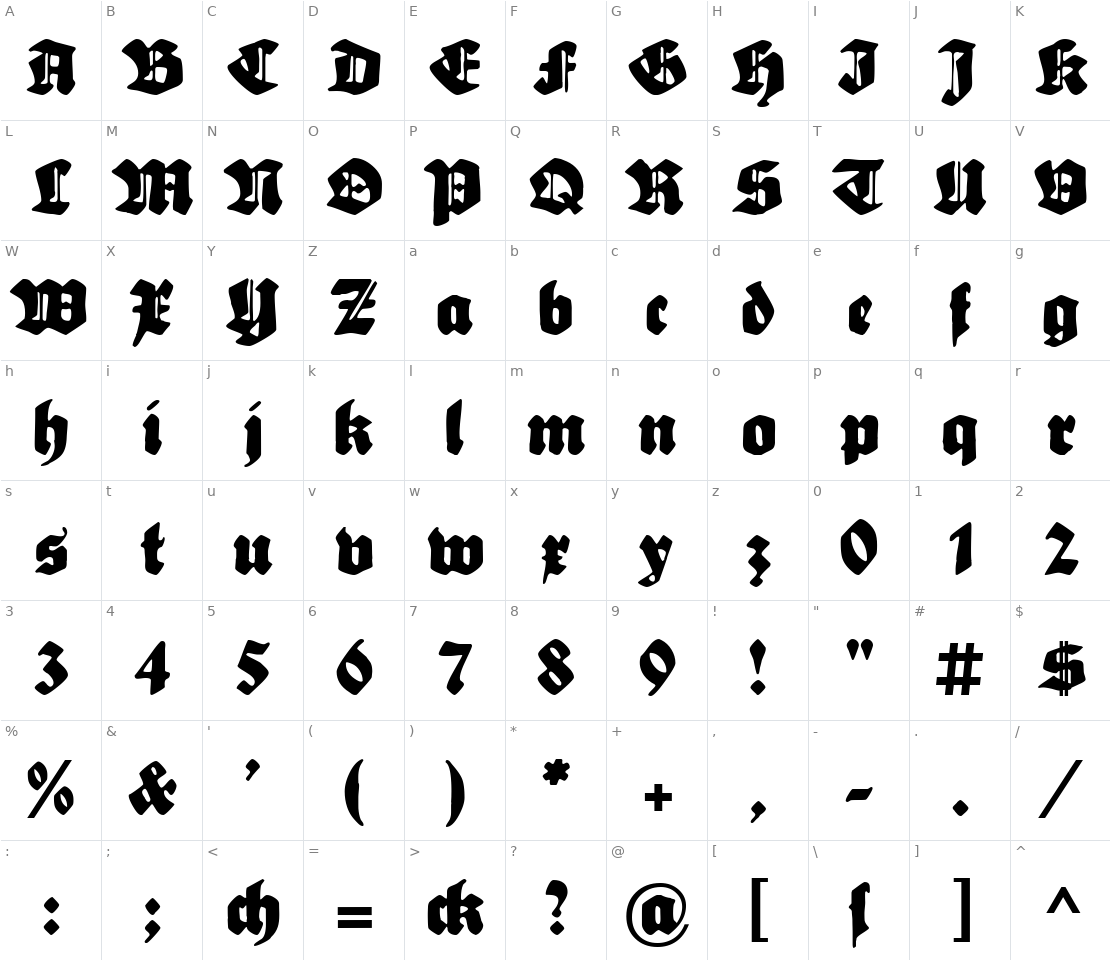
Sebaldus-Gotisch
Sebaldus-Gotisch is a heavy blackletter face from Dieter Steffmann, one of the most dedicated digitizers of historical German typefaces. The letterforms are dense and richly textured, rooted in the traditional Textura style found in medieval manuscripts and early printed books. Best reserved for headlines, titles, and display settings where its dark, imposing weight can read clearly and carry the full gravity of its historical character.